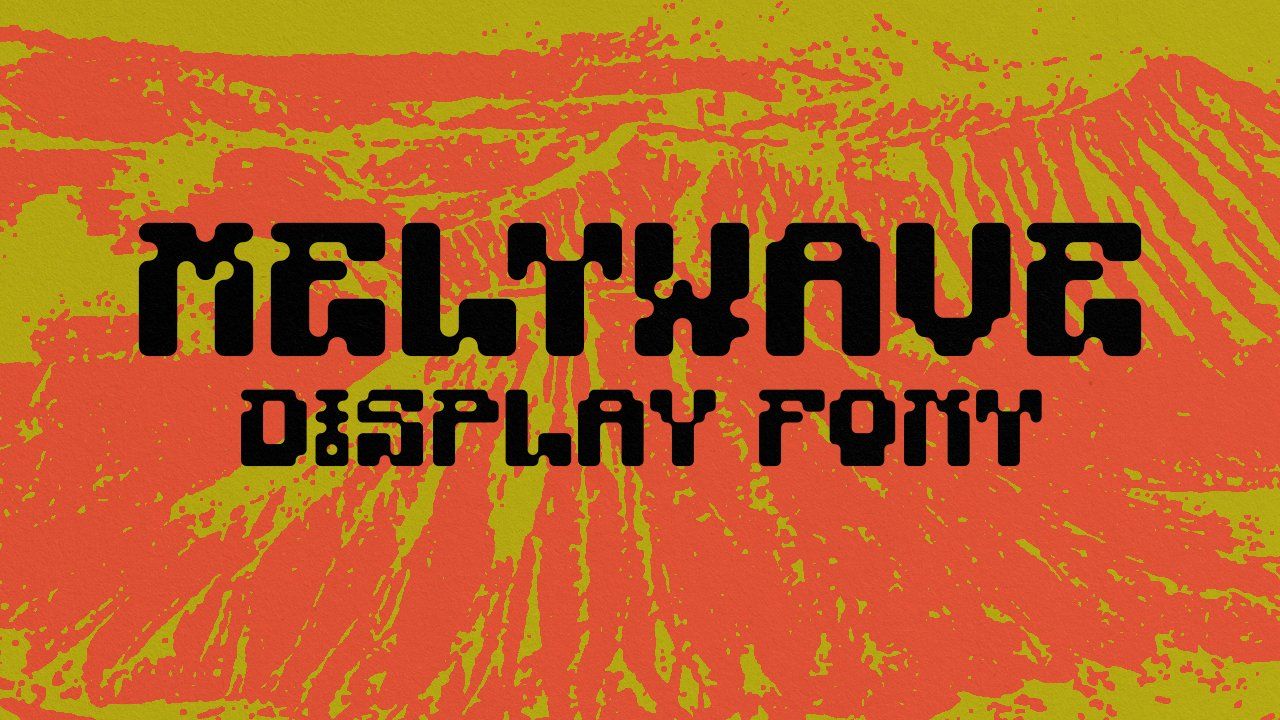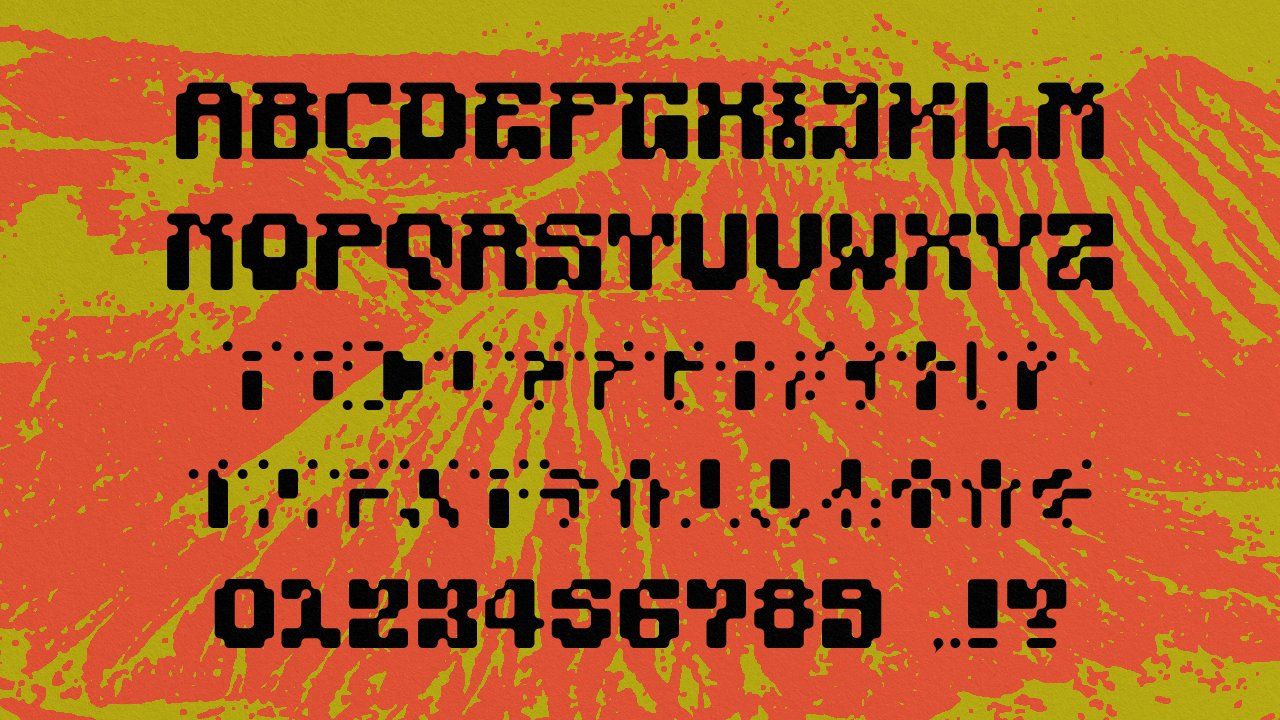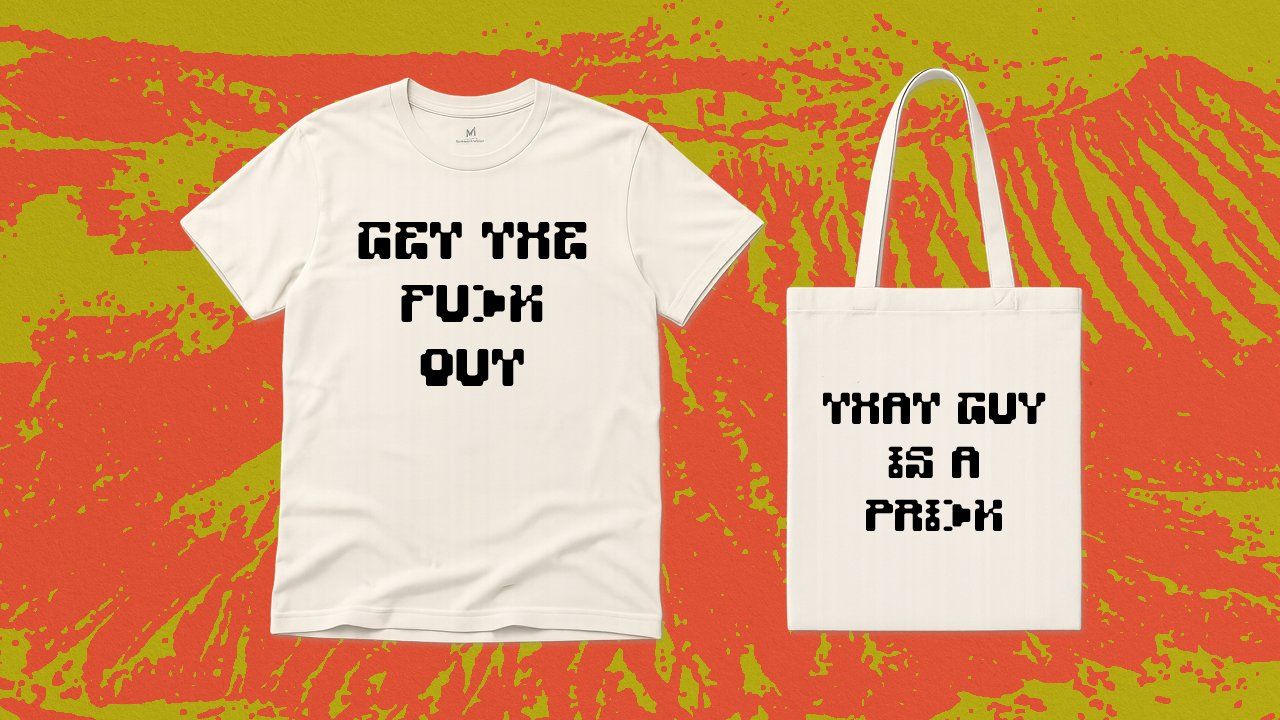
Meltwave – Secret Code Display Font
Meltwave is a unique display font that combines a standard A–Z alphabet with a coded symbol version of a–z, giving you two different styles in one typeface. The lowercase letters are replaced with custom secret-code symbols, allowing you to create mysterious and encrypted-looking typography while keeping the uppercase alphabet clean and readable.
Meltwave also includes numbers 0–9 and basic punctuation , . ! ?.
Perfect for logos, posters, album artwork, apparel, stickers, packaging, branding, puzzles, secret messages, and experimental designs. Mix the standard uppercase letters with the coded lowercase symbols to create your own unique visual language.